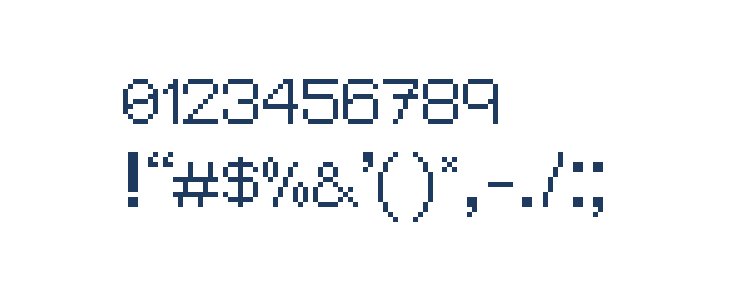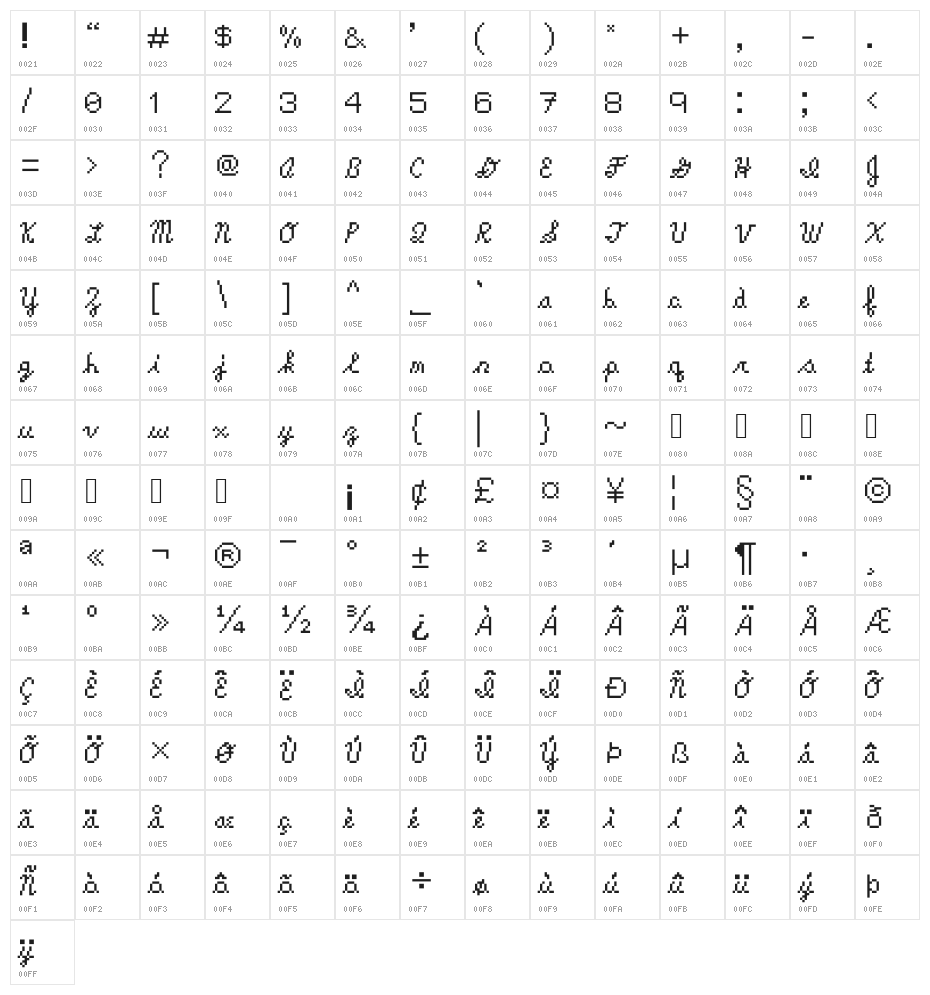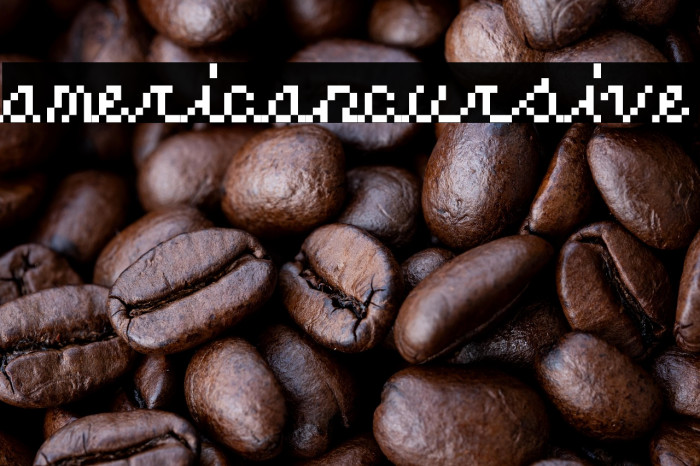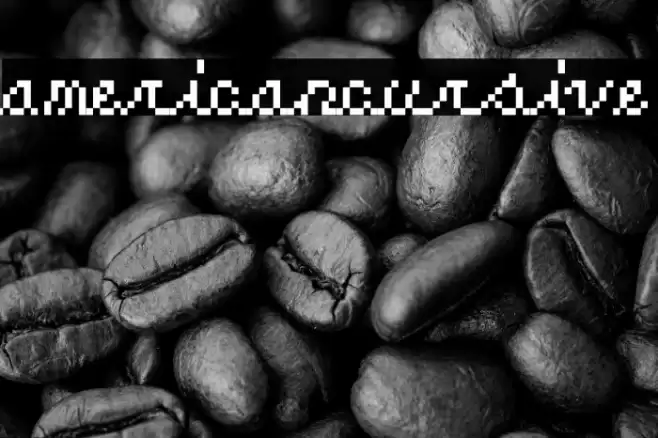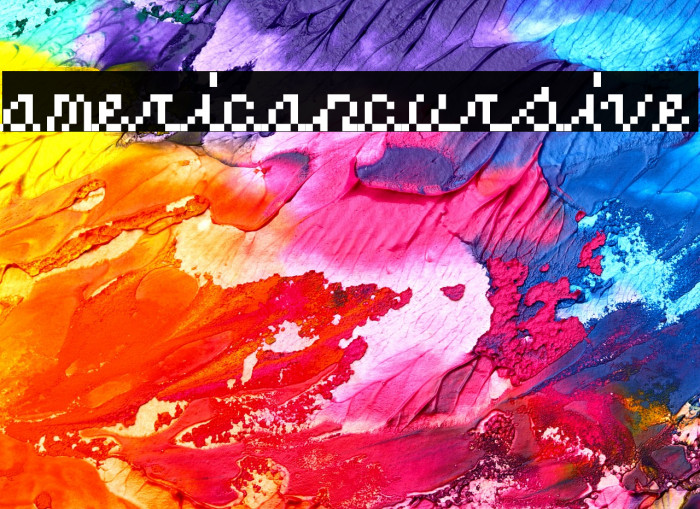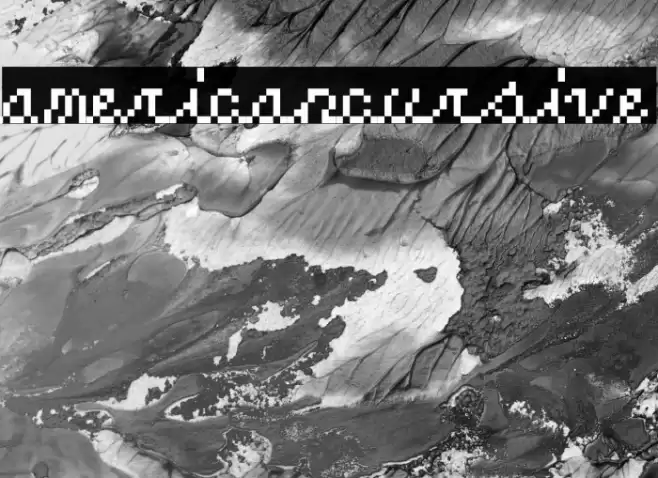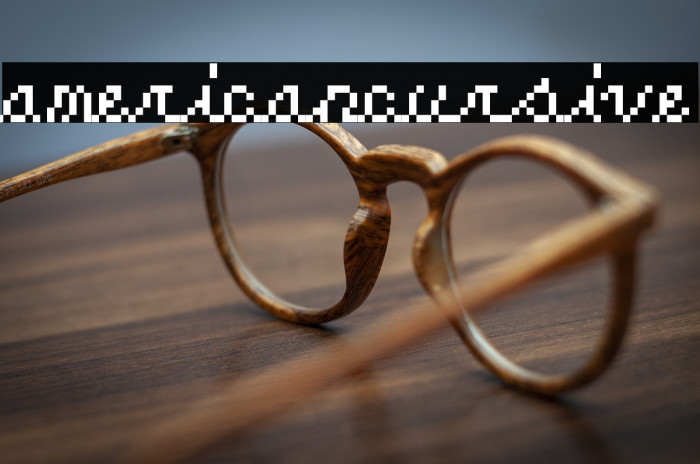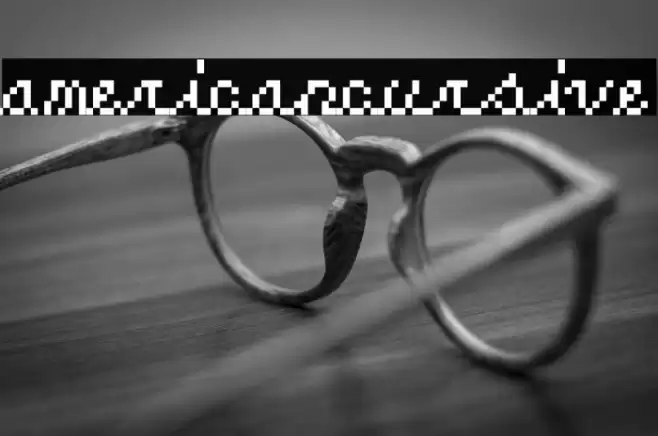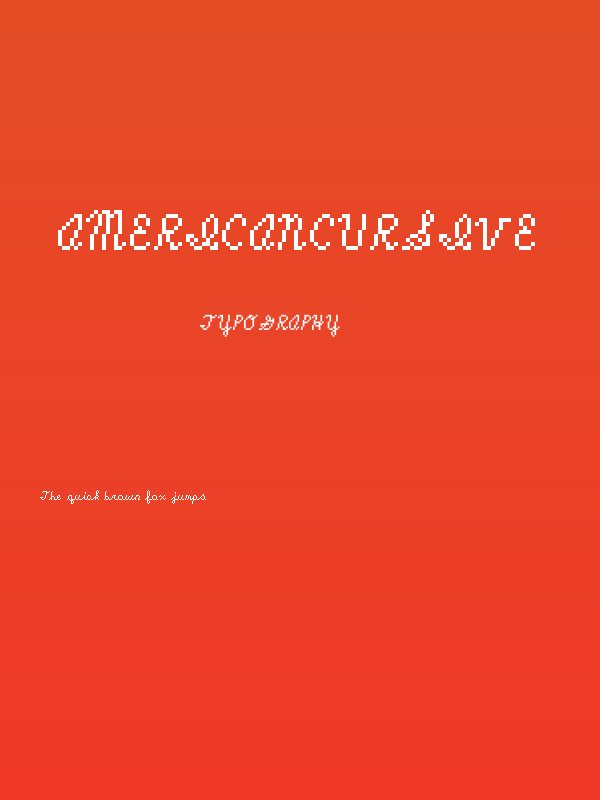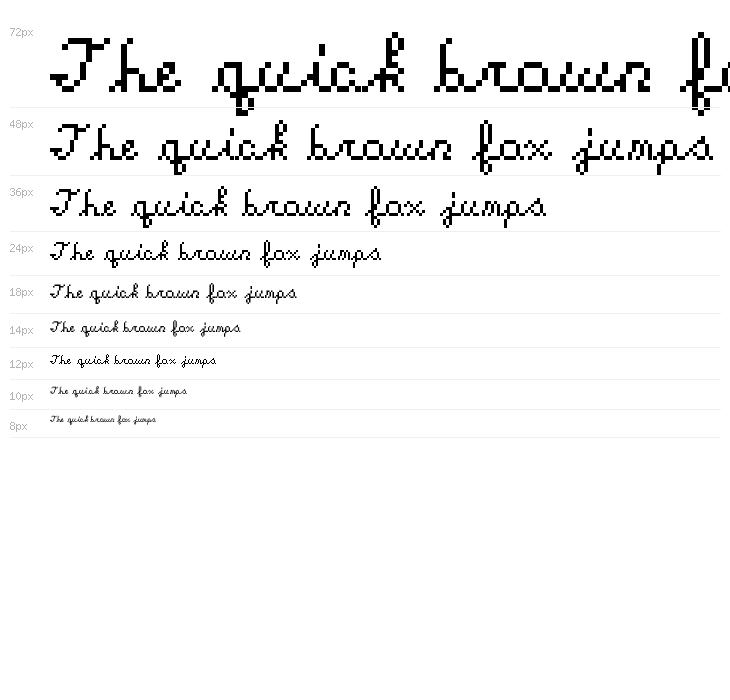
americancursive Font
americancursive Description
This font features a classic cursive style with a pixelated, retro appearance. Each character is crafted with a consistent stroke width, giving it a uniform look. The uppercase letters are elegantly looped, while the lowercase letters maintain a smooth, flowing connection, typical of cursive handwriting. The numerals and special characters are designed to match the overall aesthetic, ensuring a cohesive look across all text. The pixelated style adds a unique, nostalgic feel, reminiscent of early digital typography.
| Use Case | Logos, Headlines, Digital Art |
| Proposed Projects | Ideal for retro-themed designs, digital art projects, video game graphics, and nostalgic branding. |